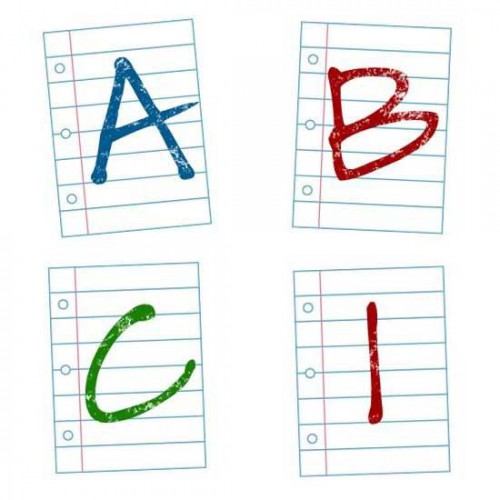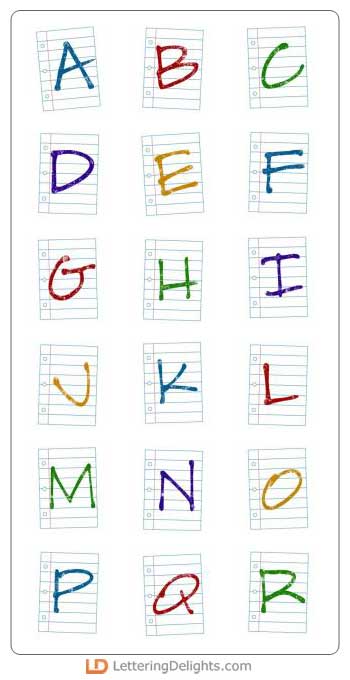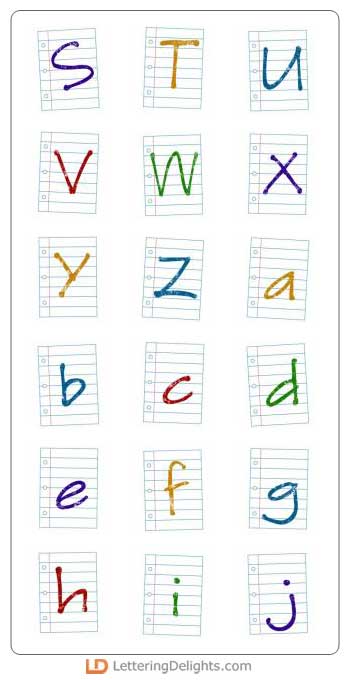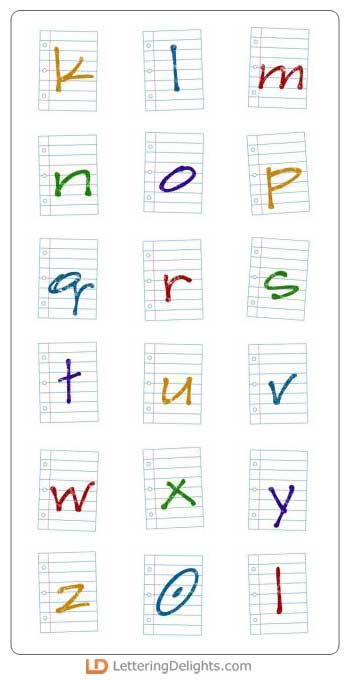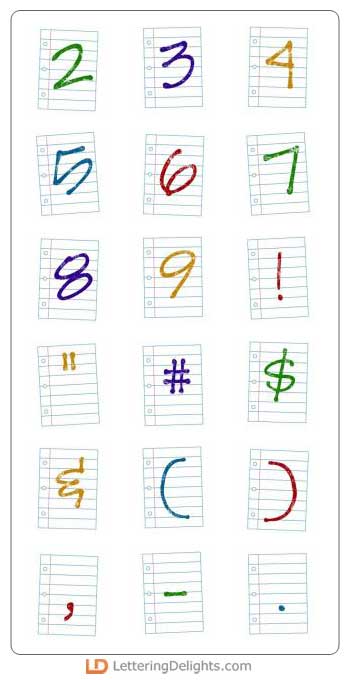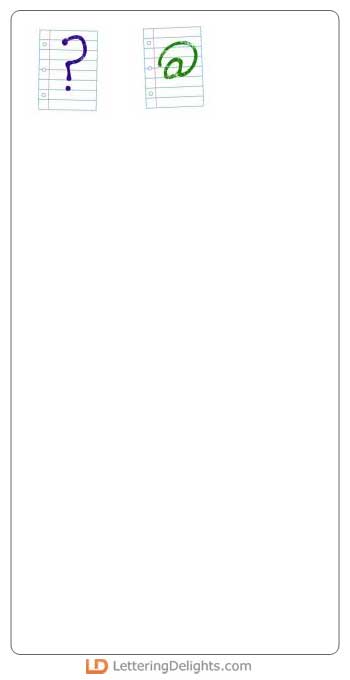
Your home from school, now it's time to do your homework. This fun, school themed alphabet has a notebook sheet of paper with a letter written in the middle. It's great for that school reminder or invitation.